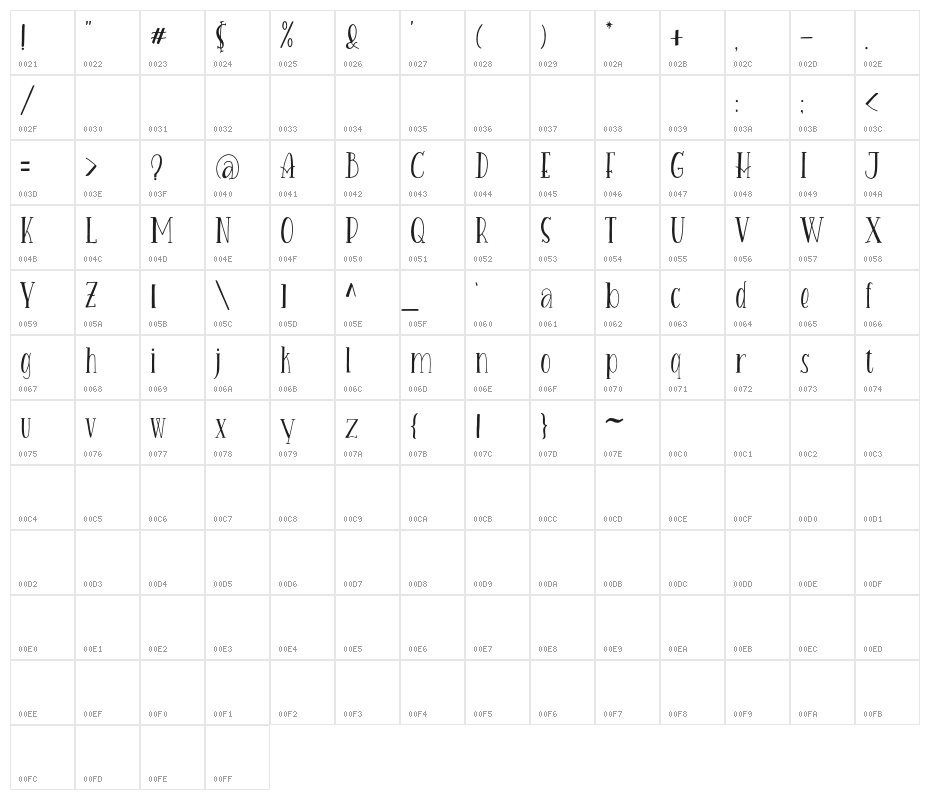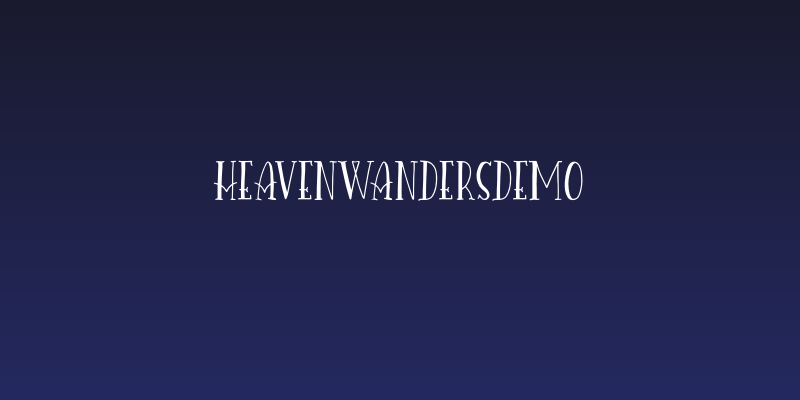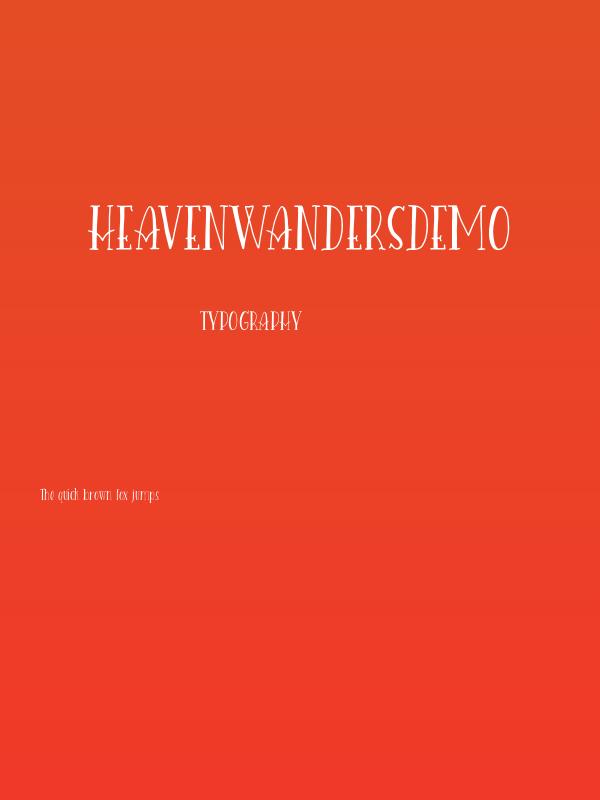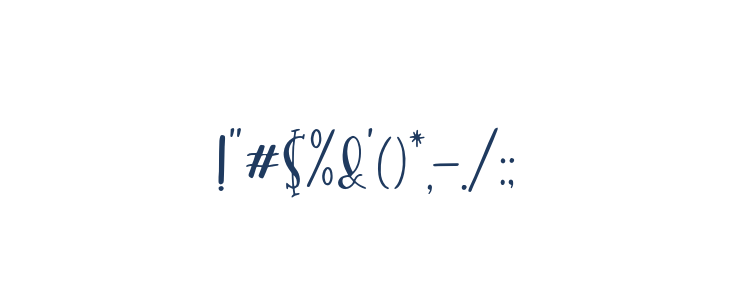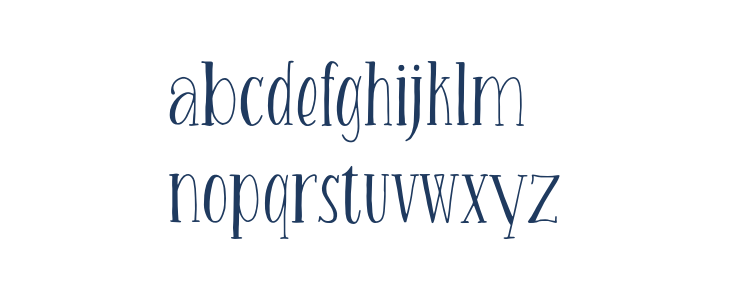
HeavenWandersDEMO Font
HeavenWandersDEMO Description
This font features a whimsical and artistic style, characterized by its tall, narrow letterforms with playful, irregular strokes. The uppercase letters exhibit a unique blend of straight and curved lines, giving them a dynamic and lively appearance. The lowercase letters maintain a consistent height, with some characters extending slightly above or below the baseline, adding to the font's quirky charm. The numerals and special characters follow the same playful design, ensuring a cohesive look across all text. This font's distinctive style makes it stand out, offering a creative and expressive option for various design projects.